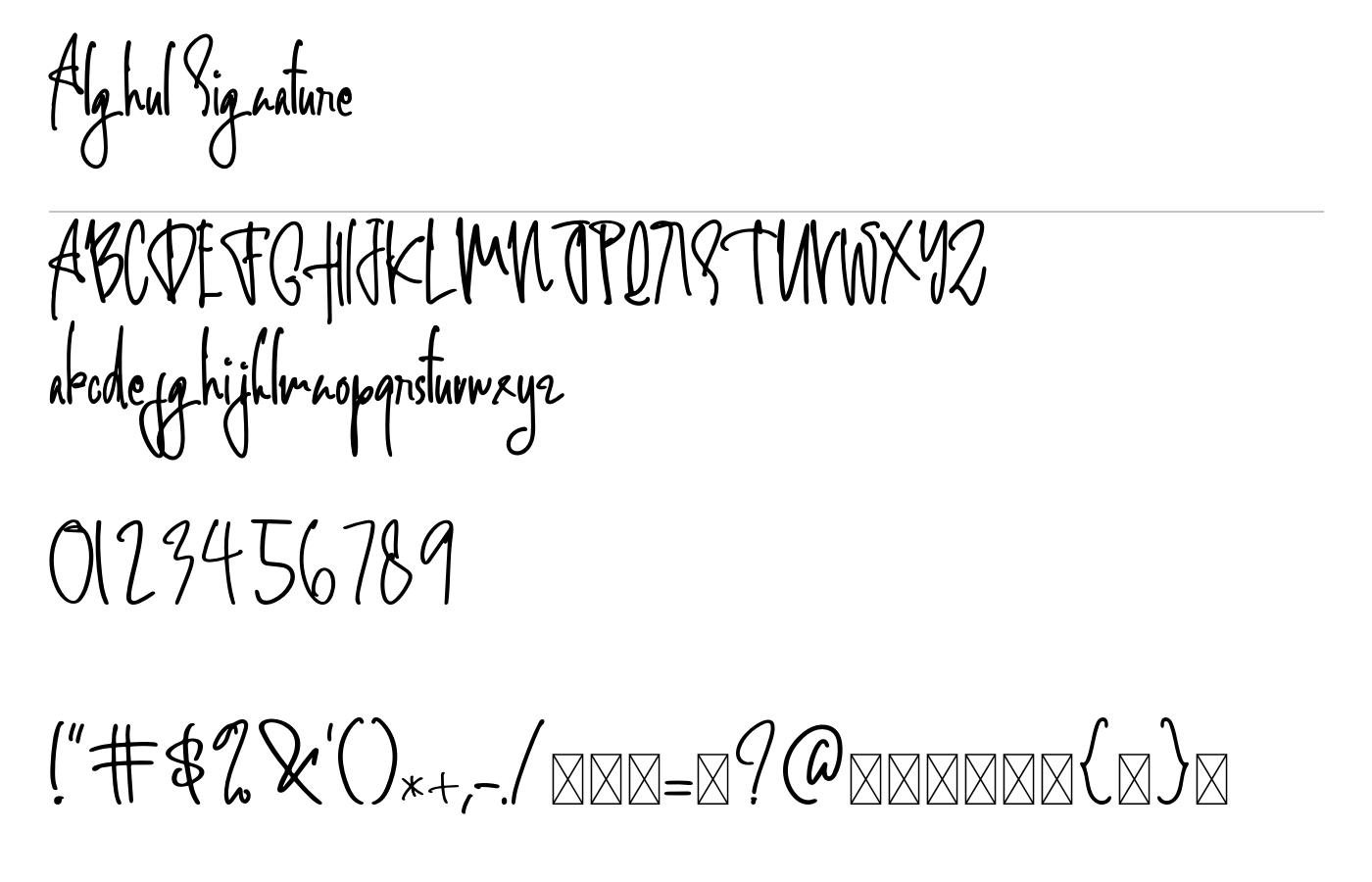
Alghul Signature Font is a playful, handwritten script font with tall, narrow letterforms and a casual, flowing style that mimics authentic personal handwriting. Its light weight and irregular strokes give it a relaxed and approachable personality, making it ideal for creative branding, personal logos, invitations, or social media content that seeks a friendly, informal feel. This font works best in headlines and decorative text where a unique, expressive touch is desired.
Alghul Signature Font
About Alghul Signature Font